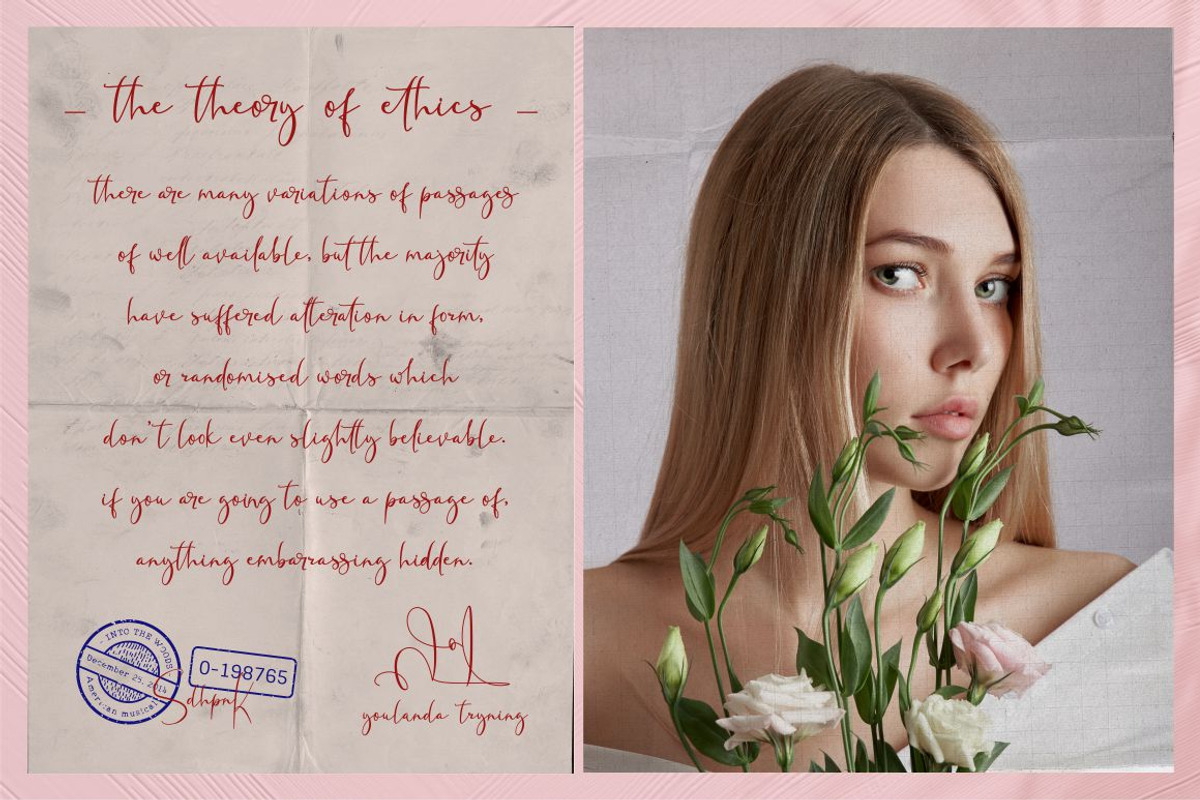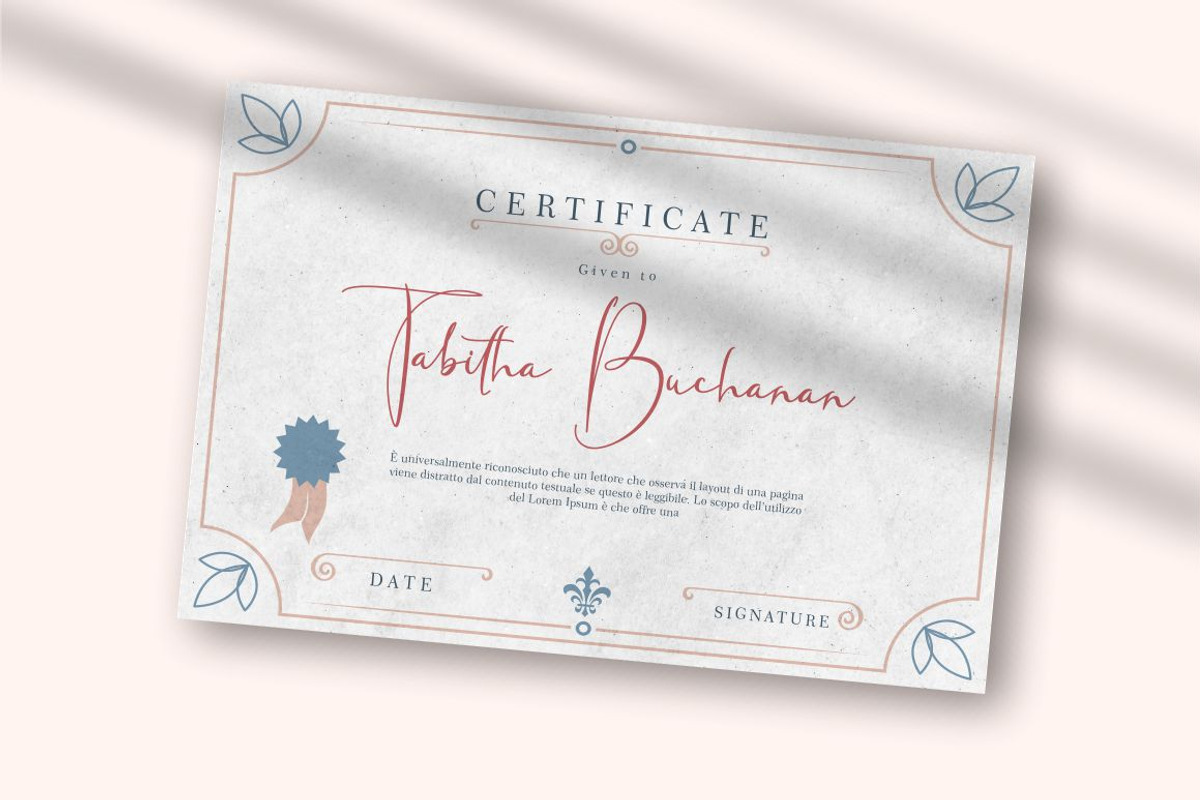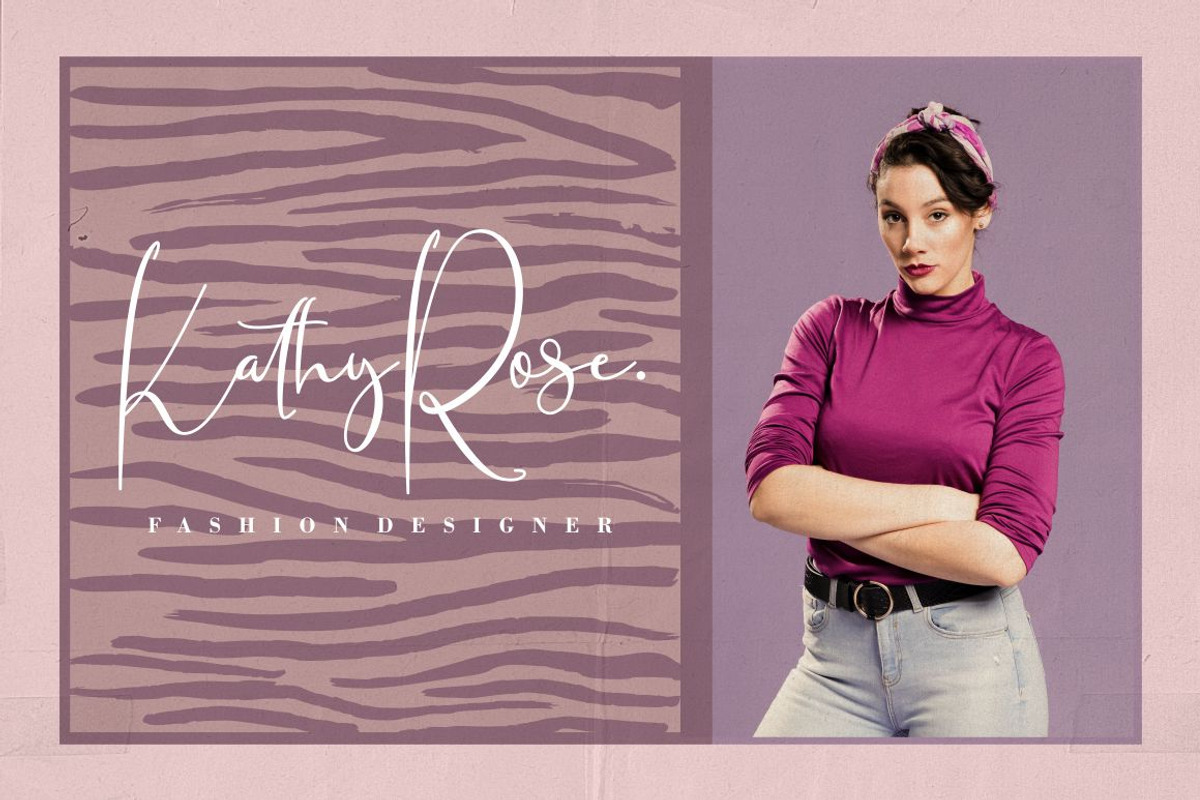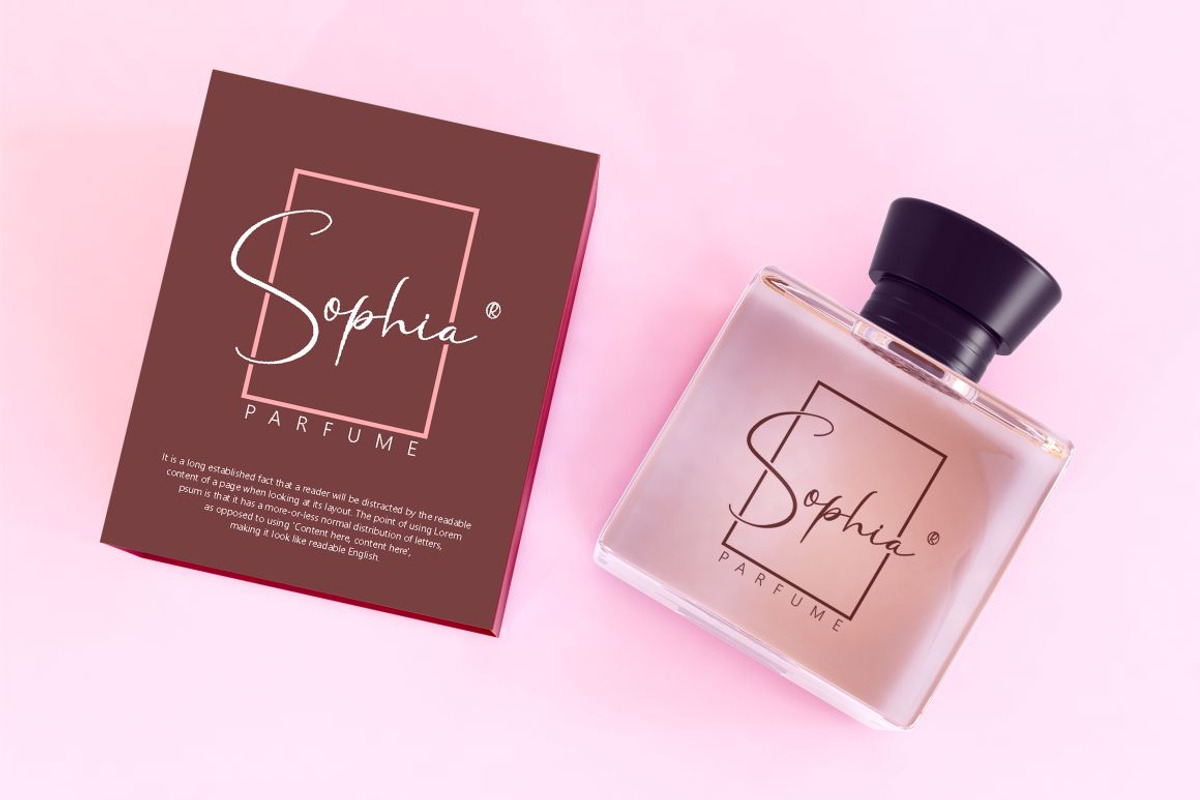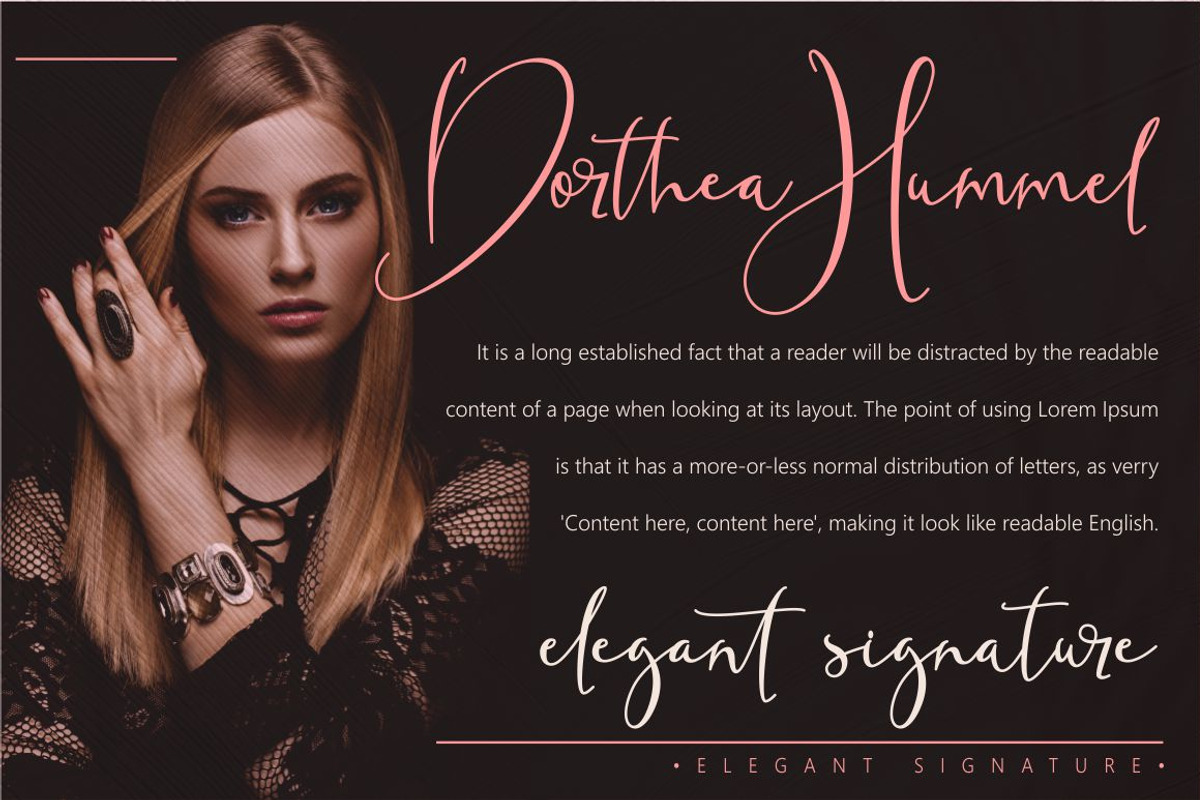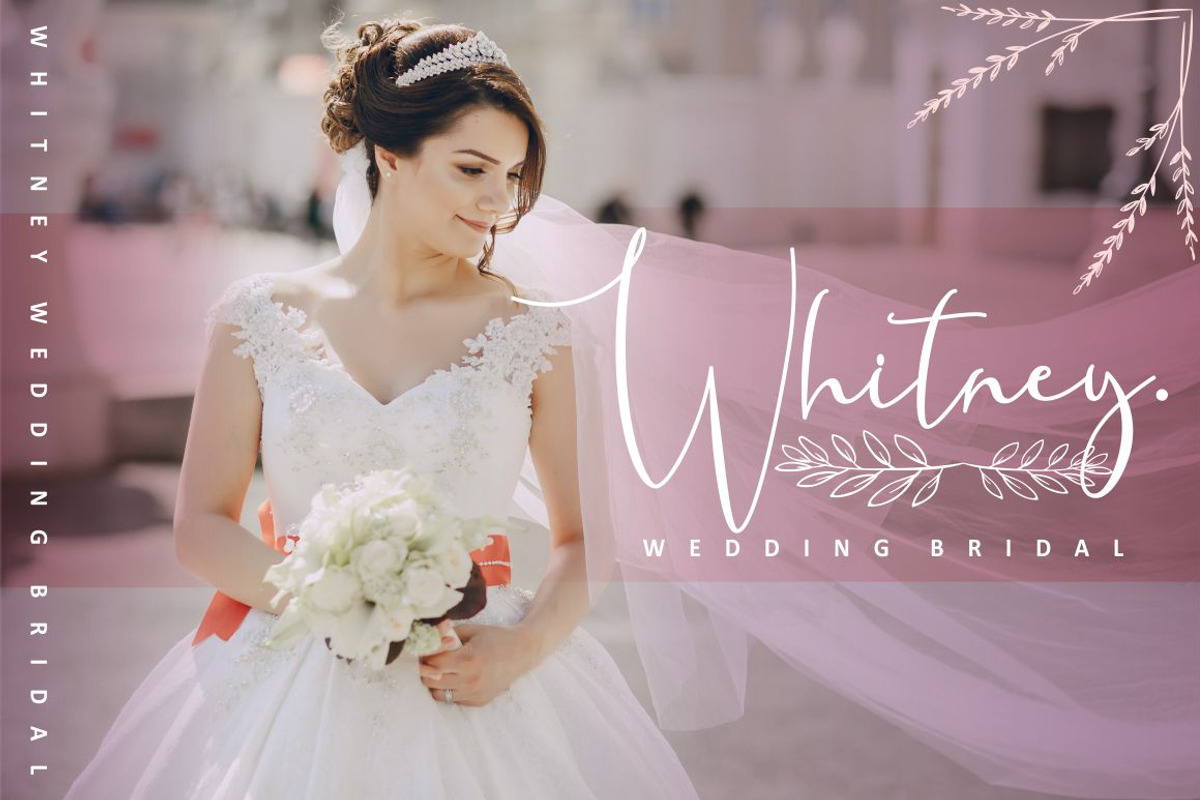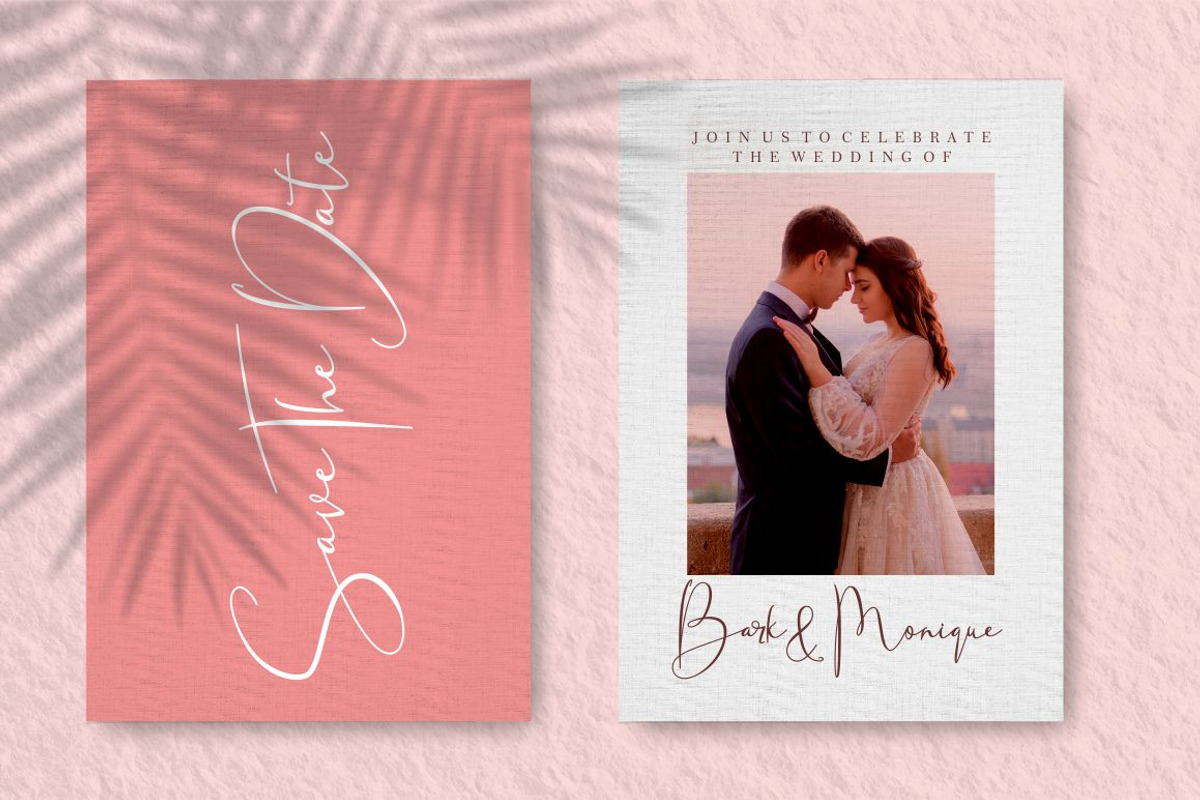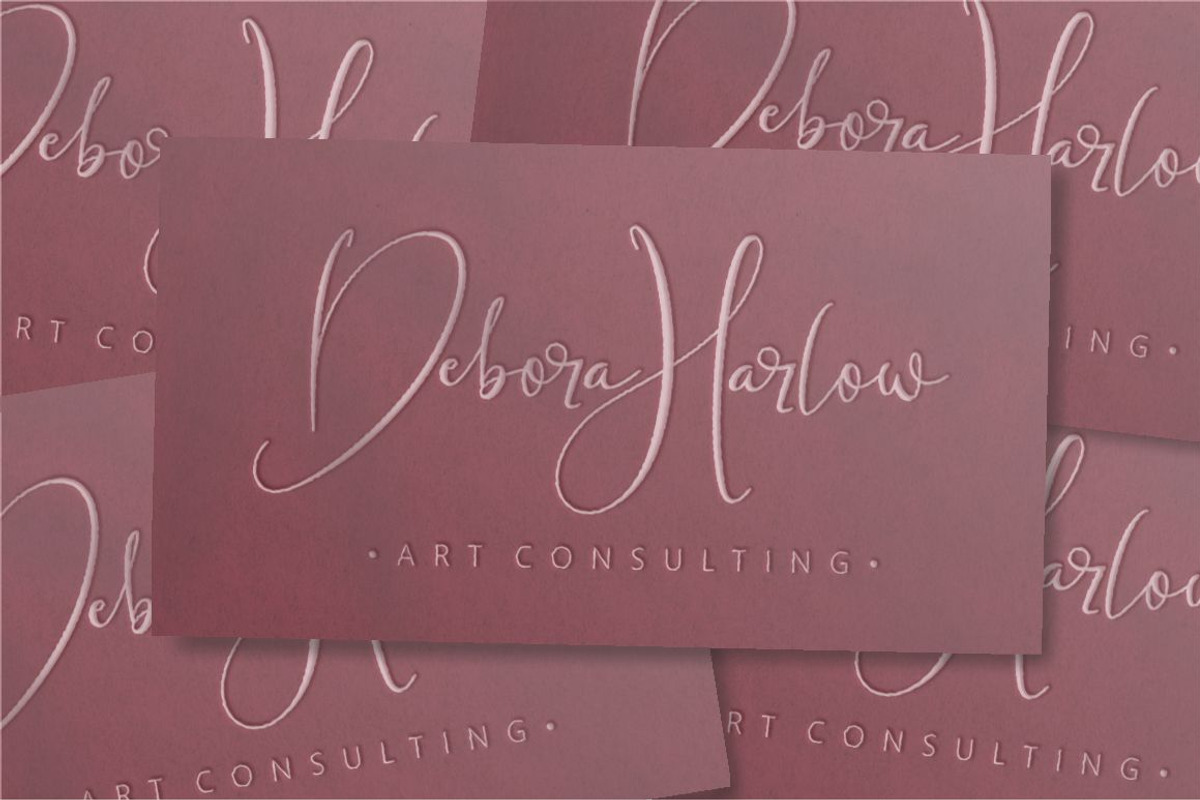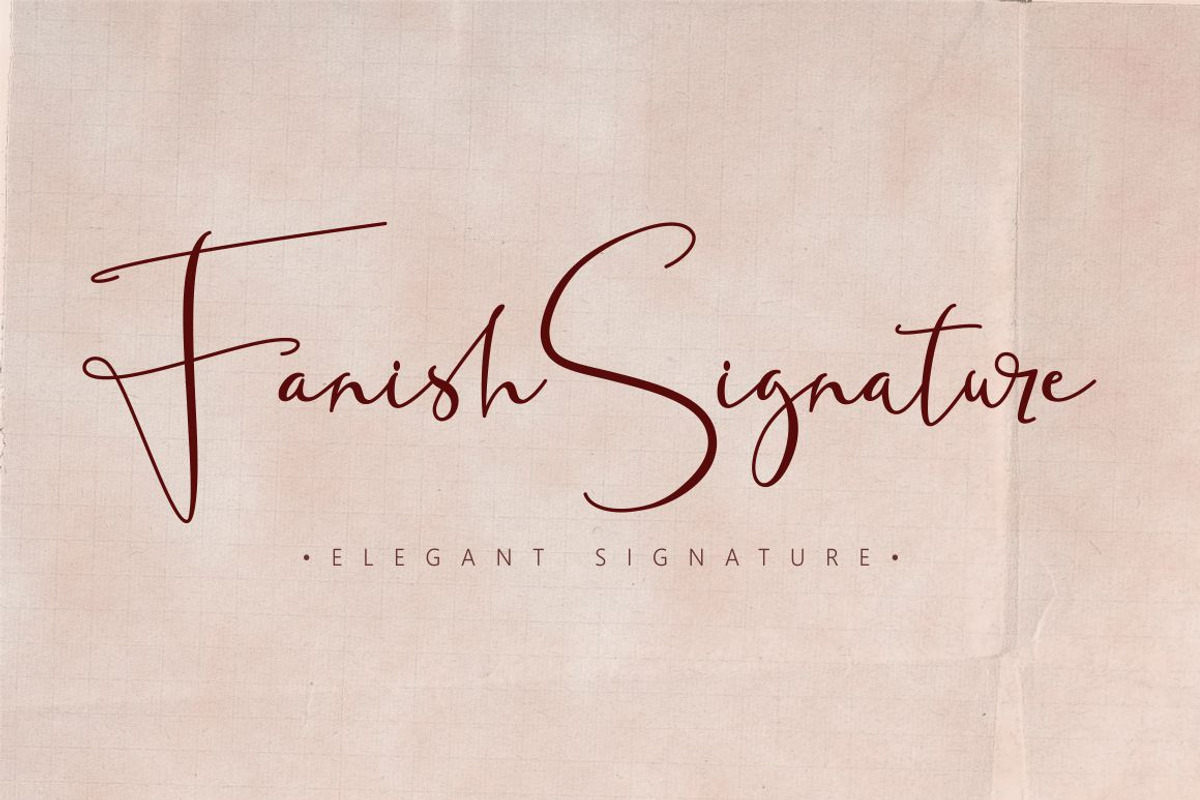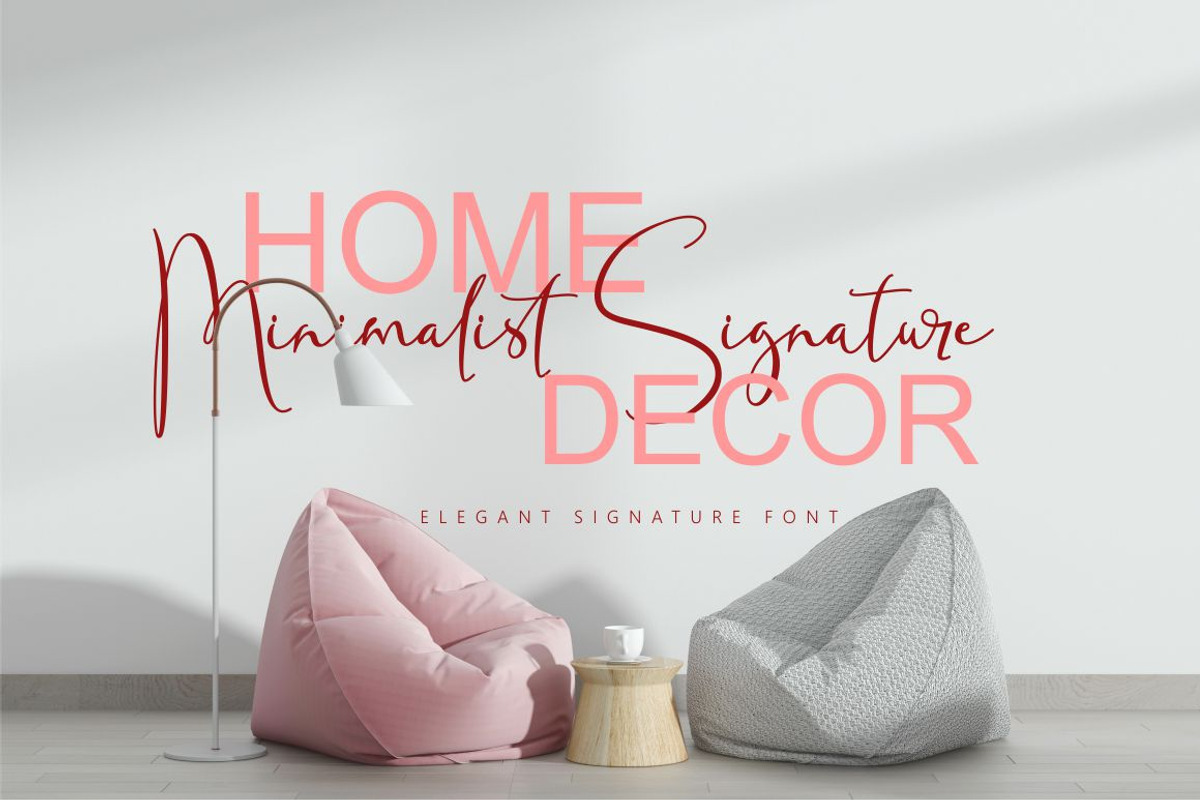
Fanish Elegant Signature Font
Fanish Signature
Introducing a elegant signature font called "Fanish Signature". This font has been designed from recreate natural handwritten style, include 116 custom beautiful ligature. it's help you to make great lettering. Fanish Signature best uses for signature, wedding, branding, invitation, heading, cover, poster, logos, quotes, product packaging, header, merchandise, social media & greeting cards and many more. This font is also support multi language.
Comes with feature :
- Alternate & Ligature
- Numerals And Punctuations
- PUA-Encoded
- Multilanguage Support.